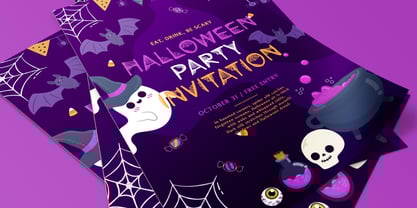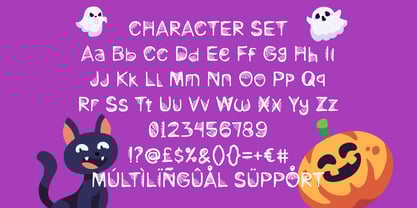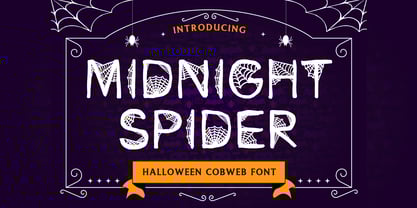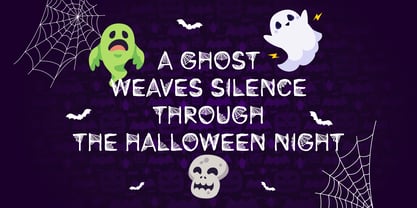
Midnight Spider
by Shanaf
The Midnight Spider Font Family was designed by Yesie Erma Yunita and published by Shanaf. Midnight Spider contains 1 styles. More about this family
Step into the shadowy allure of the Midnight Spider font, an enchanting typeface designed specifically to weave a spooky charm into your Halloween-themed creations. Each character intricately embodies the eerie essence of a spider's web, meticulously detailed to capture the creepy yet captivating nature of Halloween. The font combines whimsical curves and delicate lines, evoking a sense of mysterious elegance perfect for setting an unsettling yet delightful atmosphere. With its playful horror aesthetic, Midnight Spider ensures every design carries an unforgettable Halloween vibe.
Midnight Spider is versatile and ideally suited for various creative digital projects including logo designs, branding materials, invitations, packaging, posters, and captivating book covers. Its hauntingly decorative style brings life to movie titles, spooky-themed stickers, and quirky greeting cards, effortlessly making your project stand out. Creatively structured, each letter holds enough charm to maintain readability while effectively communicating your Halloween spirit. With multilingual support and a full set of characters, Midnight Spider is a must-have digital font to perfectly complement your festive, frightful, and fun design needs.
Designers: Yesie Erma Yunita
Foundry: Shanaf